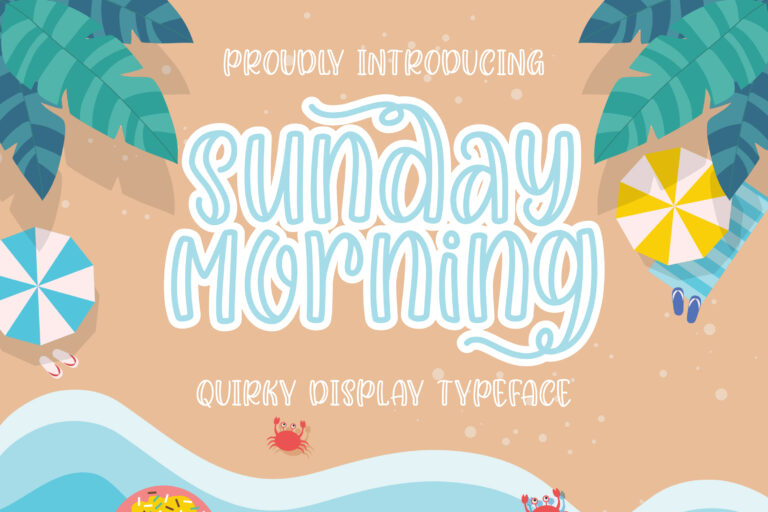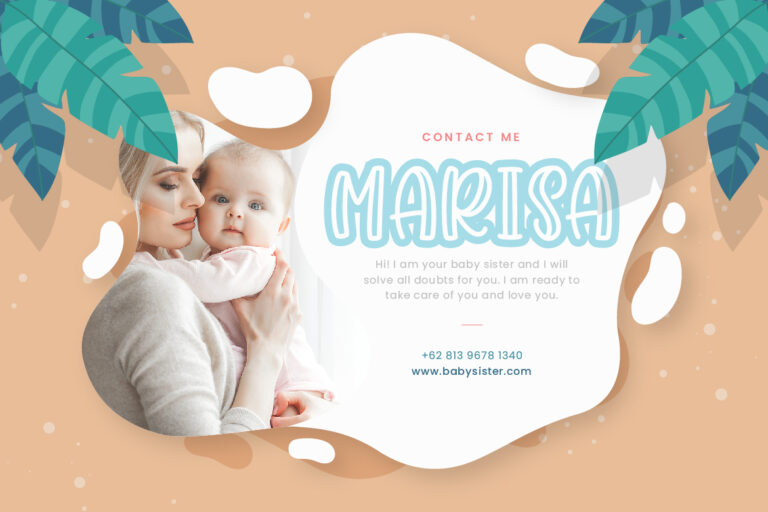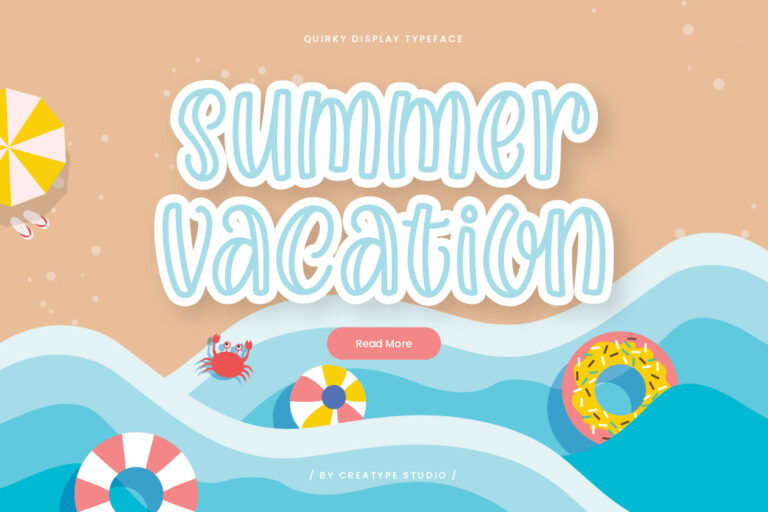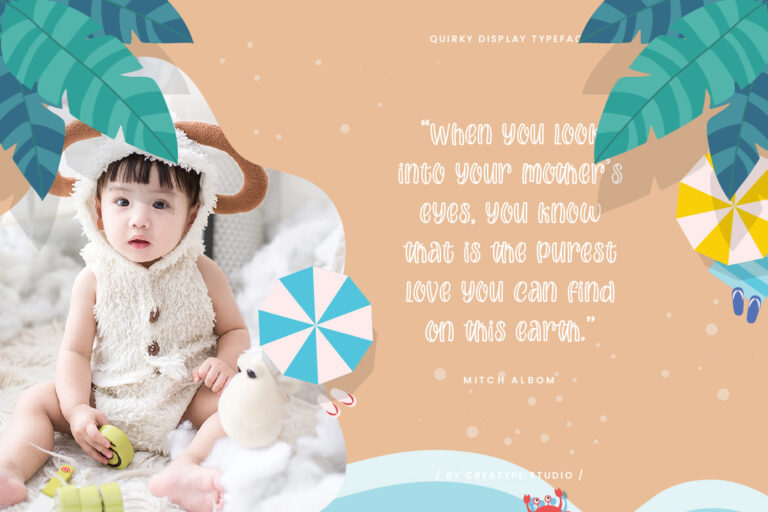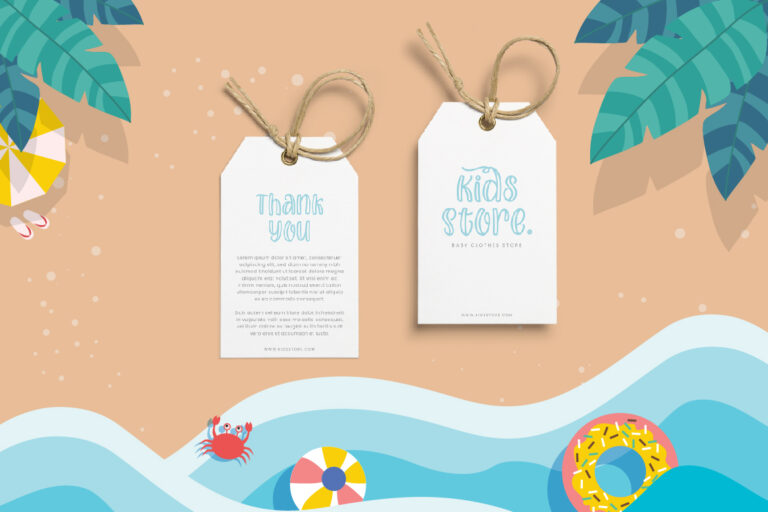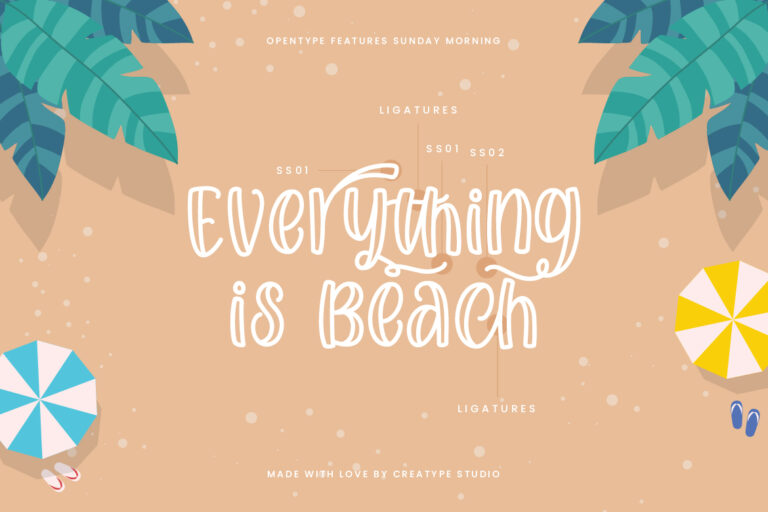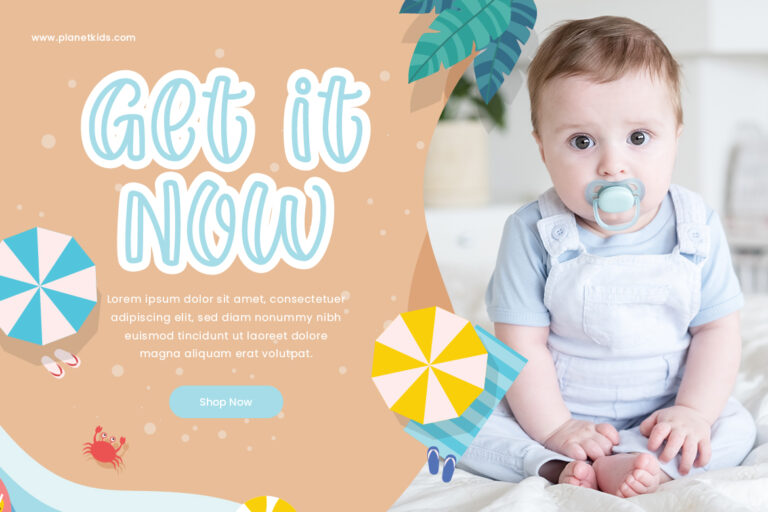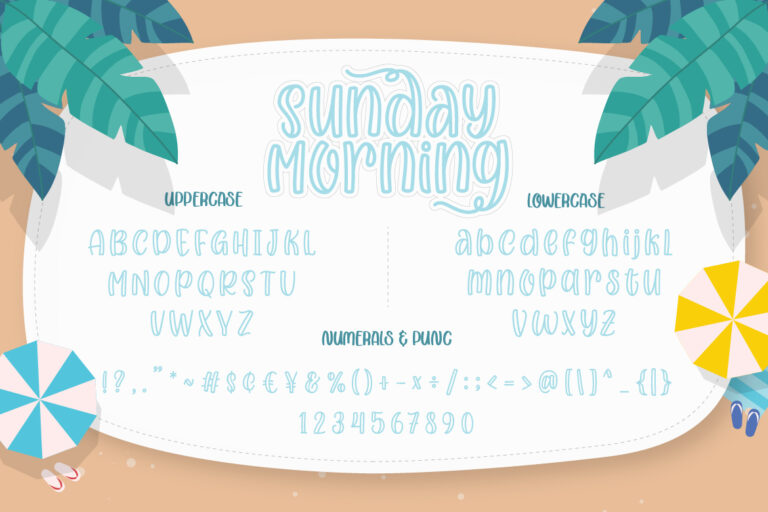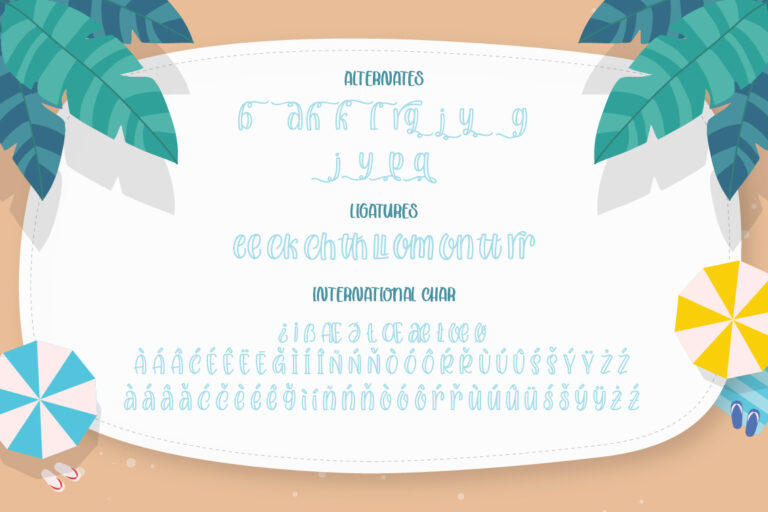
Sunday Morning Quirky Typeface
Sunday Morning is a a quirky display typeface made with love, resulting in a font that looks so cute, fresh and adorable. This font is suitable for all your products that need a cheerful, fresh and adorable feeling.
Sunday Morning is perfect for branding projects, logo, wedding designs, social media posts, advertisements, product packaging, product designs, label, photography, watermark, invitation, stationery and any projects that need handwriting taste.